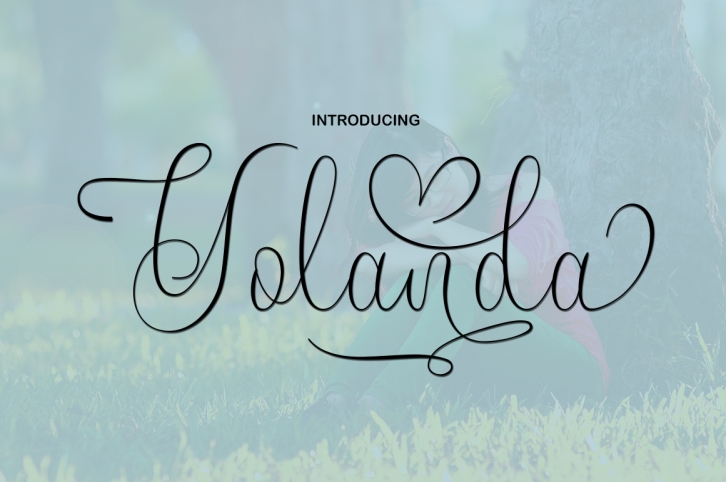
Yolanda is a great font that was designed by Art Design. Imagine the amount of combinations you can create using this font! The archive is 21.45 MB and it was released on December 23, 2018. Yolanda looks beautiful on wedding invitations, greeting cards, logos, posters, labels, t-shirt designs, logos, business cards and is perfect for use in ink or watercolor works, fashion, magazines, packaging and food menus, children's books and more!